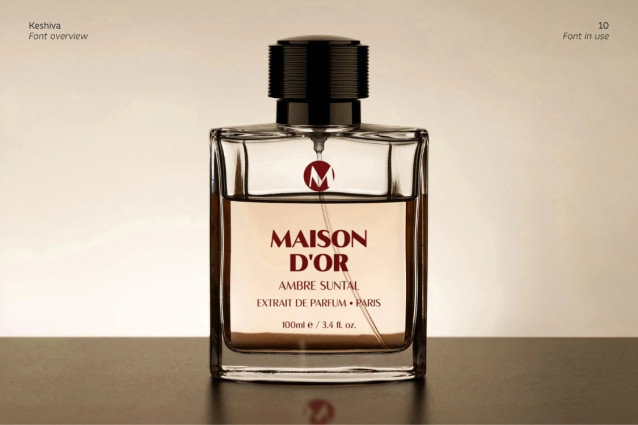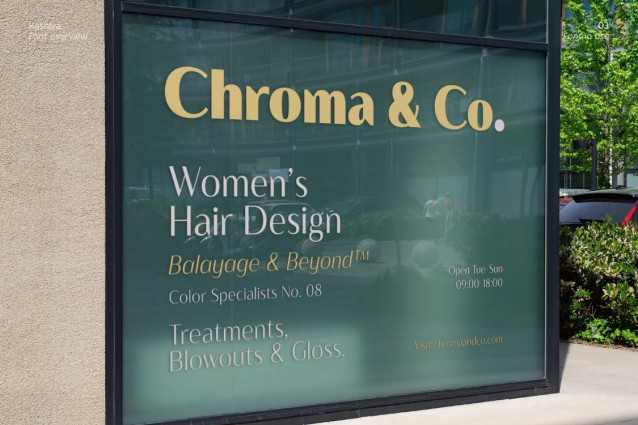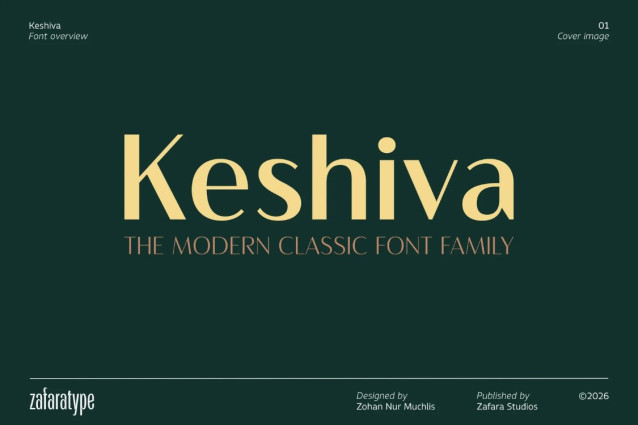
Keshiva Font blends geometric strength with a refined luxury aesthetic. A versatile family of 18 styles (Uprights & Obliques) built for contemporary branding, editorial layouts, and modern visual identities that demand elegance and clarity.